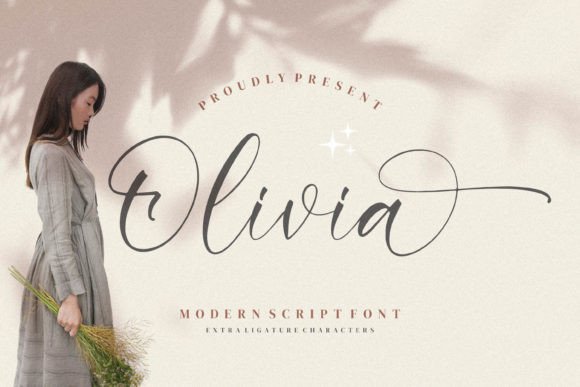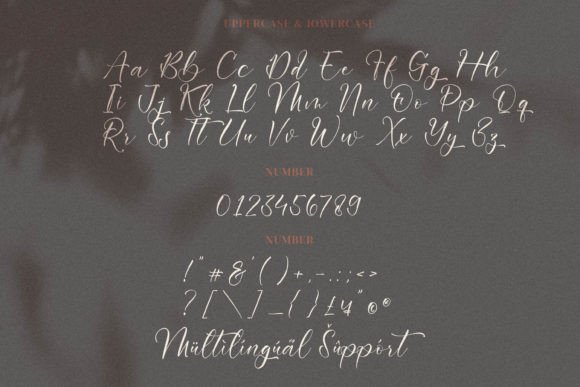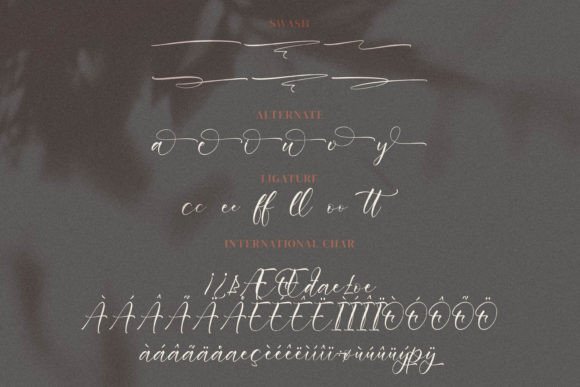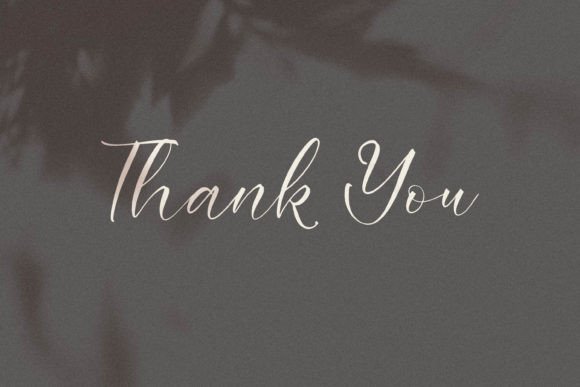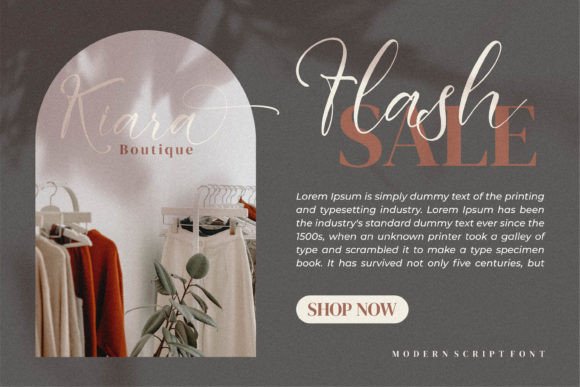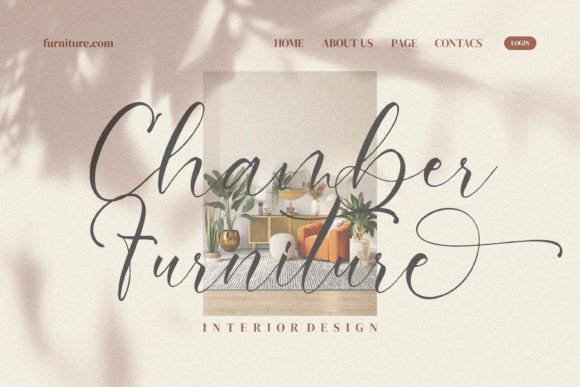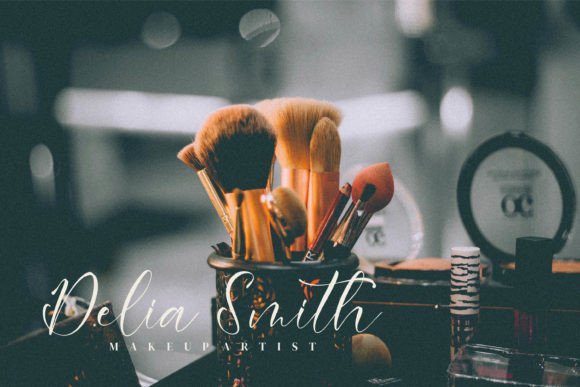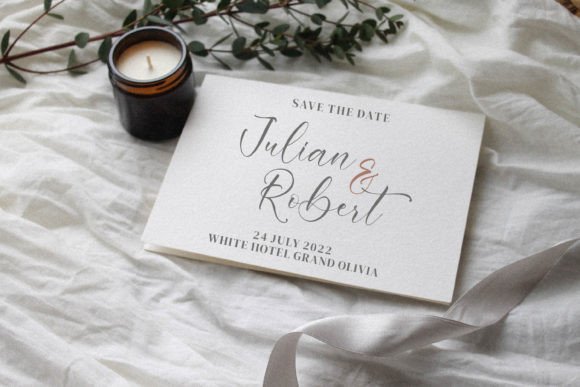
Olivia Font
About Olivia Font
Olivia – Modern Script Font, suitable for any projects such as logos, branding projects, homeware designs, product packaging, mugs, quotes, posters, shopping bags, t-shirts, book covers, name cards, invitation cards, greeting cards, labels, photography, watermark, special events, and all your other luxury projects that need a premium signature taste.